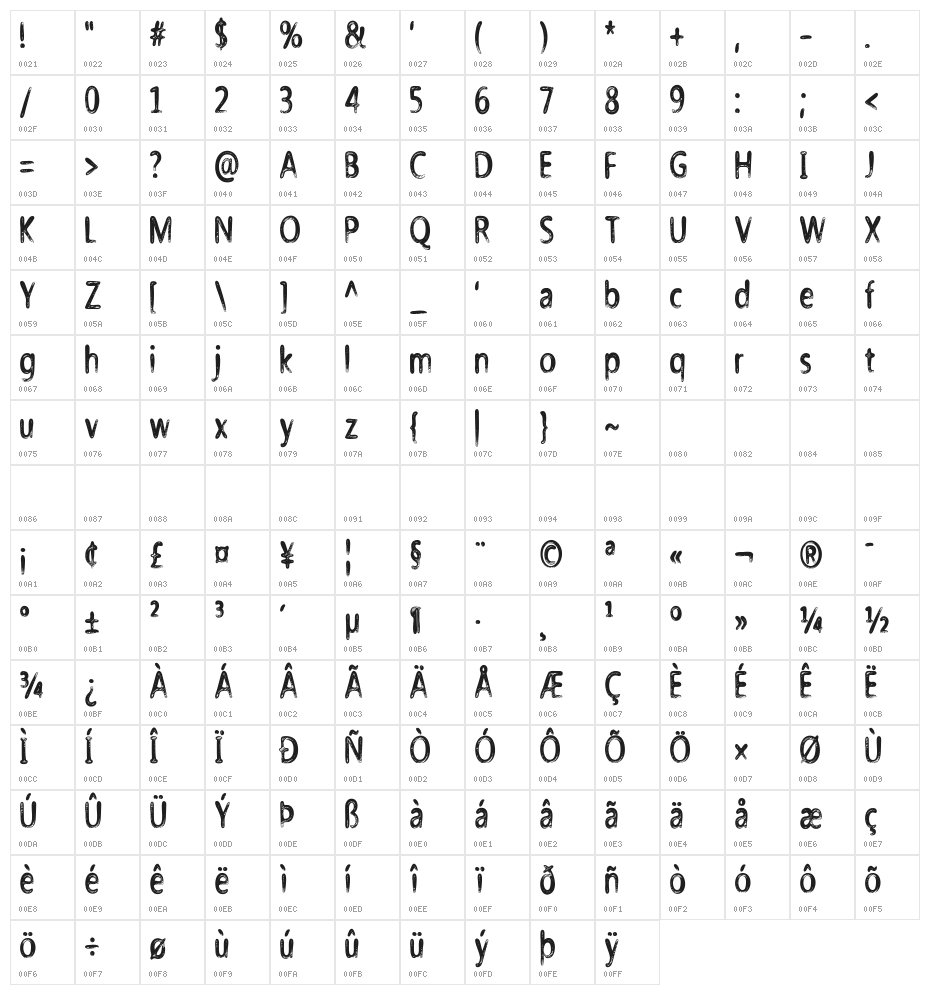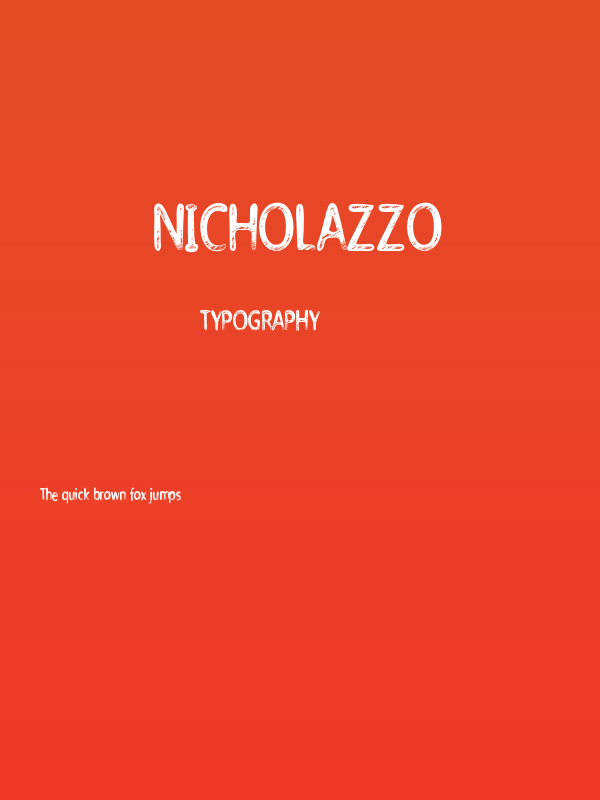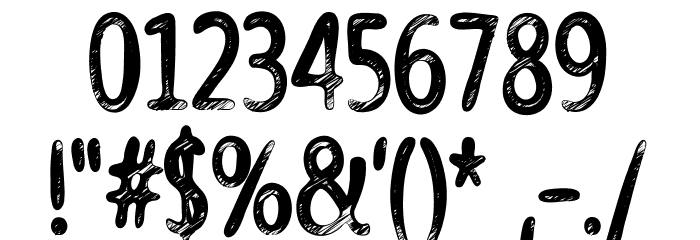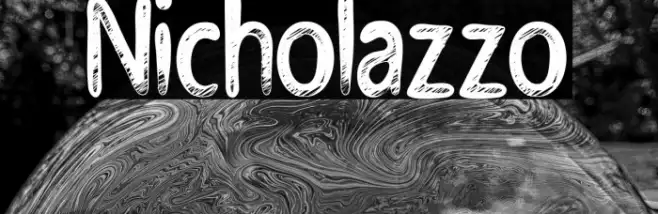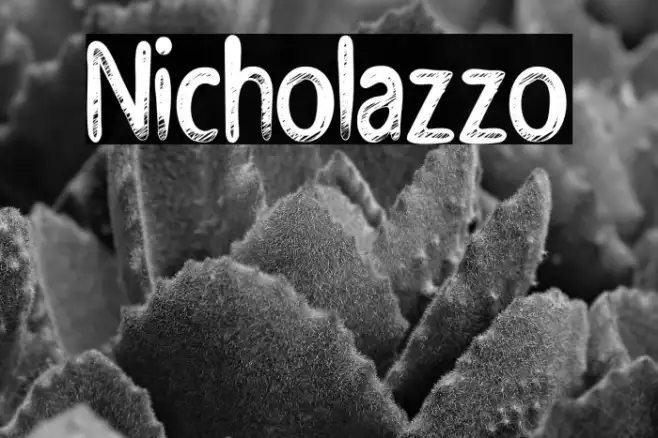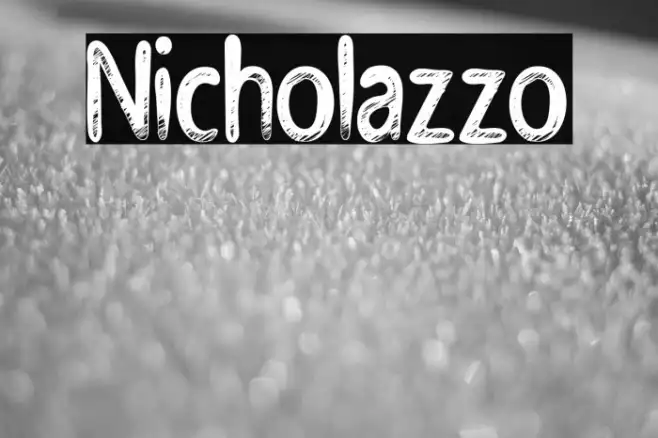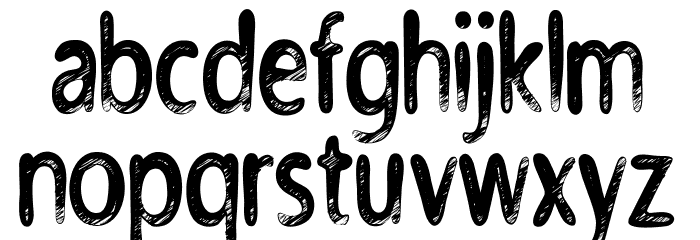
Nicholazzo Font
Nicholazzo Description
This font features a playful and artistic style, characterized by its hand-drawn appearance and sketch-like texture. The letters are bold and rounded, with a slightly irregular form that adds to its casual and informal feel. The strokes are thick and consistent, giving the font a strong presence. The uppercase and lowercase letters maintain a uniform height, while the numbers and special characters are designed to match the overall aesthetic. The font's unique texture and style make it stand out, ideal for projects that require a creative and fun touch.
| Proposed Projects | Ideal for children's books, creative posters, playful branding, and artistic invitations. |